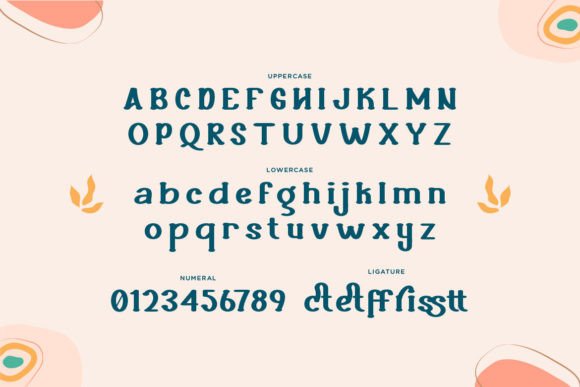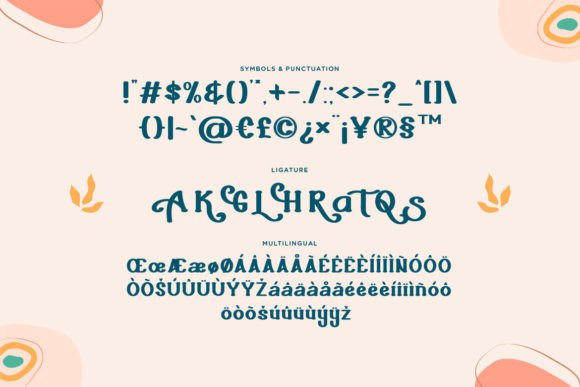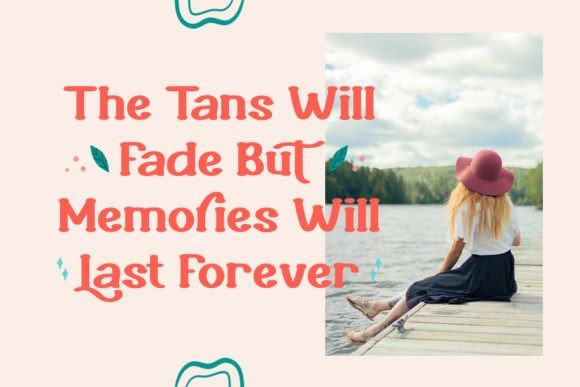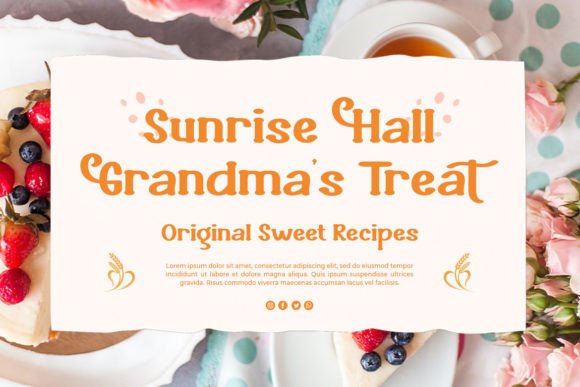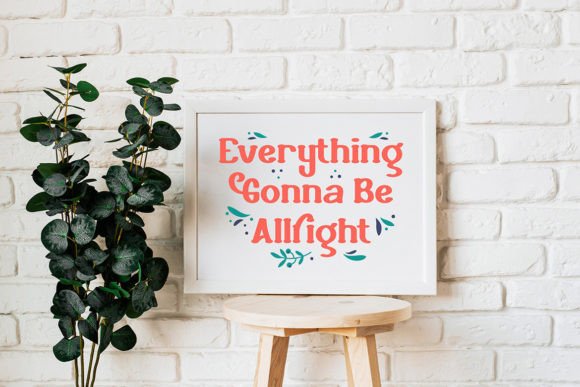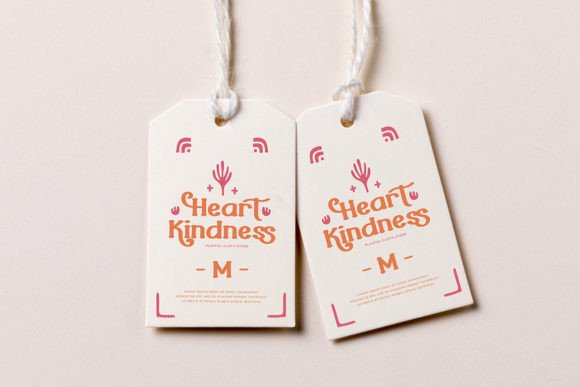
Discovering the Perfect Font: When Inspiration Strikes
Have you ever found yourself staring at a blank design canvas, desperately searching for that one perfect font to bring your creative vision to life? It’s a moment we’ve all been in, where the right font can make or break the entire design. For designers, the hunt for the ideal font is an ongoing quest, and we’re excited to share with you a recent discovery that’s been making waves in the design community.
Meet April Leashes Font, a stunning serif font that combines classic elegance with a modern twist. This versatile font is designed to add a touch of sophistication to any design, while still keeping it fresh and contemporary. Whether you’re working on branding, logos, invitations, or packaging, April Leashes Font is the perfect choice to elevate your designs and leave a lasting impression.
April Leashes Font Key Features
- Font Family: April Leashes
- Font Size: 1,200 glyphs, covering a wide range of languages
- Resolution: Supports high-resolution displays with clear and crisp typography
- Unique Characteristics: April Leashes features a unique blend of modern and vintage elements, with intricate details and ornate flourishes, making it ideal for creative and artistic projects.
- Language Support: Covers multiple languages, including Latin, Cyrillic, and Greek scripts
Designer Review: April Leashes Font
Overall, I’d say the April Leashes Font is a solid, modern choice for digital projects. ✨ It’s versatile and has a unique aesthetic that can elevate your design. The font is quite legible, even at smaller sizes, which is a big plus.
- Legibility: As mentioned, the font is easy to read, even at smaller sizes.
- Unique Aesthetic: April Leashes has a distinctive style that sets it apart from more common fonts.
- Multi-Platform Compatibility: The font works well on a variety of devices and platforms.
- ❗️ Limited Character Set: The font’s character set is relatively limited, which may not be ideal for projects that require a wide range of characters.
- ❗️ Not Ideal for Long Blocks of Text: While the font is legible at smaller sizes, it may not be the best choice for large blocks of text due to its relatively narrow line height.
I think the April Leashes Font is a great choice for designers who want a modern, unique look for their projects. While it may have some limitations, it’s a solid choice for digital design. With careful consideration of its limitations, April Leashes can add a touch of sophistication to your designs.
Tips: Use the April Leashes font for creative and playful designs. Experiment with different font sizes and colors to enhance the visual impact.
Tips: Use the April Leashes font for illustrations, graphics, and creative projects. Combine it with other fonts and graphics to create a unique visual style.
Tips: Use the April Leashes font for presentations, reports, and documents. Use it sparingly to add a touch of creativity and personality.
The April Leashes font is ideal for:
- Creative projects and illustrations.
- Playful and whimsical designs.
- Adding a touch of personality to presentations and documents.
Alternatives to April Leashes Font for Designers
Great Vibes is a beautiful script font that is perfect for creating elegant and sophisticated designs. It has a more refined and polished look compared to April Leashes Font, making it ideal for wedding invitations, luxury brands, and high-end fashion designs.
Comparison: While April Leashes Font has a more playful and casual feel, Great Vibes Font is more formal and sophisticated. Great Vibes Font is also more versatile and can be used for a wider range of designs.
Carolyna Pro is a modern script font that is perfect for creating bold and eye-catching designs. It has a more dynamic and energetic feel compared to April Leashes Font, making it ideal for streetwear brands, music festivals, and youth-oriented designs.
Comparison: While April Leashes Font has a more laid-back and casual feel, Carolyna Pro Font is more energetic and bold. Carolyna Pro Font is also more suitable for designs that require a lot of contrast and visual interest.
Alex Brush is a elegant and refined script font that is perfect for creating sophisticated and luxurious designs. It has a more delicate and intricate look compared to April Leashes Font, making it ideal for high-end fashion brands, luxury hotels, and fine dining restaurants.